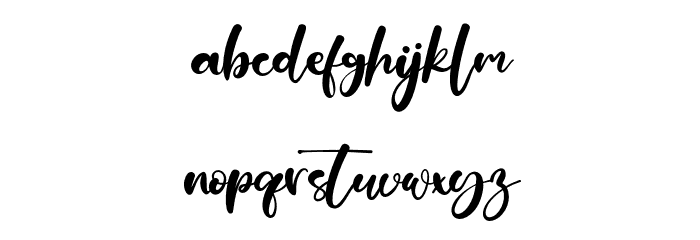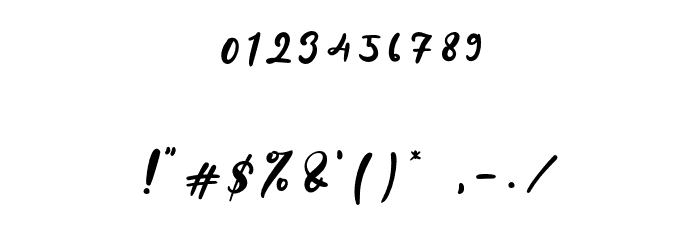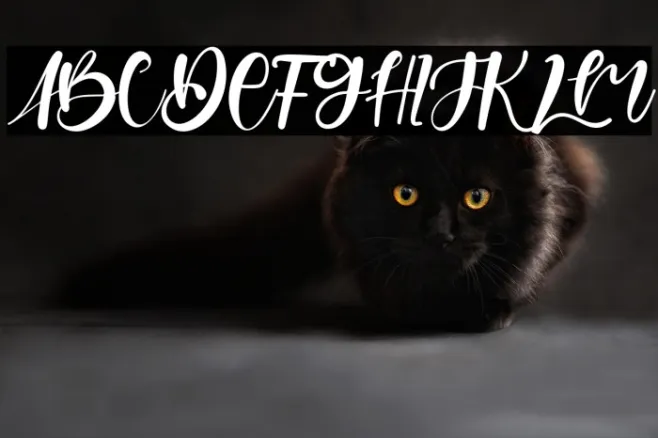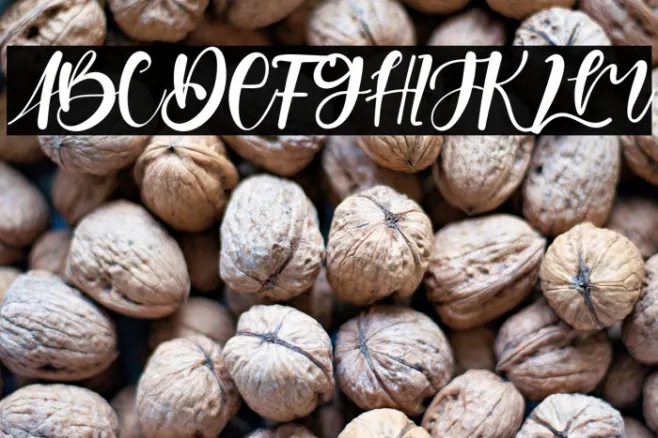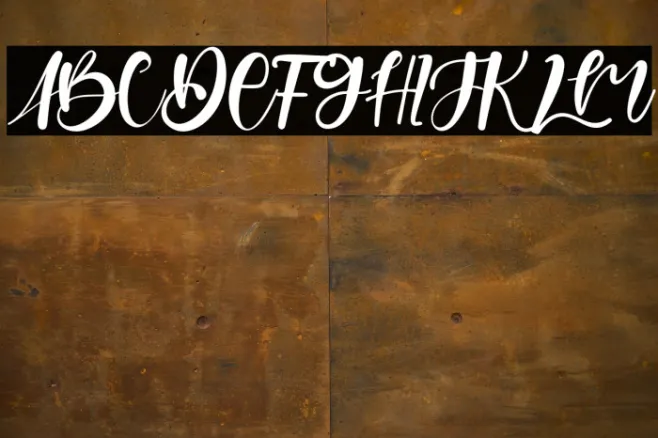
BillionSmile Font
This font exudes a playful and elegant script style, characterized by its flowing, cursive letters that mimic the fluidity of handwriting. The uppercase letters are bold and dynamic, with sweeping curves and loops that add a sense of movement and grace. The lowercase letters maintain a consistent style, with some characters featuring unique flourishes that enhance their visual appeal. The numerals and special characters are designed to complement the overall aesthetic, ensuring a cohesive look across all text. This font is perfect for projects that require a touch of sophistication and personality.
A playful and elegant script font with flowing, cursive letters.
- Proposed Projects: Ideal for wedding invitations, greeting cards, branding, and social media graphics.
- Use Case: Logos, Invitations, Social Media